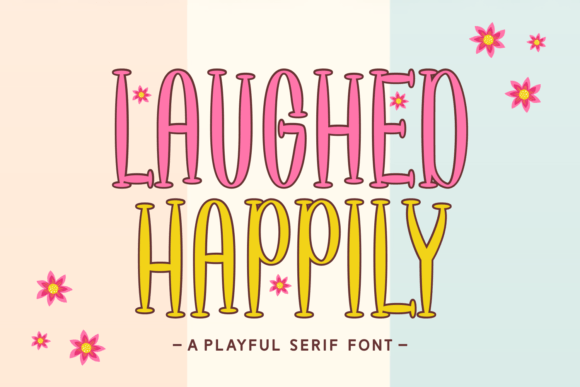
Laughed Happily: The Display Font That Brings Joy to Your Designs
There is a specific kind of energy that a font can convey before a single word is read. It sets the tone, dictates the mood, and often determines whether a viewer feels invited or turned away. Laughed Happily is a delightful and cheerful display font that radiates joy and positivity, designed specifically to capture that feeling of genuine delight. With playful curves and bouncy letterforms, it adds a touch of whimsy to any project, transforming standard text into a visual celebration. For creators, entrepreneurs, and everyday users looking to inject warmth into their work, this typeface offers more than just aesthetic appeal; it offers an emotional connection.
The Essence of Playful Typography
At its core, Laughed Happily captures the essence of happiness and laughter in every character. Unlike rigid sans-serifs or formal serifs that prioritize neutrality, this font embraces irregularity and movement. The letterforms are not static; they seem to bounce off the page, mimicking the natural rhythm of a child's handwriting or the spontaneous nature of a joyful shout. This makes it an ideal choice for anyone who wants their design to feel human, approachable, and full of life.
When you select a display font like this, you are making a statement about your brand or your message. You are signaling that your content is safe, fun, and welcoming. In a digital landscape often dominated by sleek minimalism, choosing something with personality can be a powerful differentiator. It tells the audience that you understand the importance of emotion in communication and that you value creativity over strict conformity.
Real-World Applications for Creators and Businesses
The versatility of Laughed Happily extends far beyond simple decoration. It finds its true home in projects where engagement and emotion are paramount. Let's explore how different professionals and hobbyists can leverage this font in practical scenarios.
Greeting Cards and Personal Stationery
One of the most immediate uses for this cheerful display font is in greeting cards. Whether you are designing birthday wishes, anniversary notes, or get-well-soon messages, the right typography can elevate the sentiment. Imagine a "Happy Birthday" card where the text itself seems to dance. Using Laughed Happily here instantly communicates excitement and warmth. It works exceptionally well for handmade stationery brands or Etsy sellers who want their products to stand out on crowded shelves. The bouncy nature of the letters suggests a personal touch, as if the sender took extra time to write a heartfelt note by hand.
Children's Books and Educational Materials
For authors, illustrators, and educators, engaging young readers is the ultimate goal. Laughed Happily is perfect for children's books, activity sheets, and classroom decorations. Children respond positively to visuals that feel friendly and non-threatening. When used for chapter titles, dialogue bubbles, or key vocabulary words, this font helps maintain a child's attention and encourages a love for reading. Educators can use it to create flashcards or posters that make learning feel like play rather than work. The playful curves align perfectly with the developmental stage of early childhood, where imagination and curiosity are driving forces.
Event Invitations and Party Branding
If you are planning a baby shower, a birthday party, or a community festival, the invitation sets the expectation for the event. A stiff, formal font might suggest a gala dinner, but Laughed Happily promises fun, games, and good times. Event planners and small business owners organizing workshops or pop-up markets can use this font to create flyers and social media graphics that attract a relaxed, enthusiastic crowd. It signals that the atmosphere will be light-hearted and inclusive, encouraging people to bring their families and friends.
Digital Marketing and Social Media Content
In the fast-paced world of social media, stopping the scroll is half the battle. Bloggers, influencers, and marketers often struggle to make their posts stand out against a sea of generic templates. Incorporating Laughed Happily into Instagram stories, YouTube thumbnails, or blog headers can grab attention immediately. It works particularly well for lifestyle brands, parenting blogs, or wellness coaches who want to project an image of optimism and approachability. However, it should be used strategically—perhaps for headlines or call-to-action buttons—to ensure it doesn't overwhelm the main body text, which usually requires better readability.
Who Benefits Most from This Typeface?
The utility of Laughed Happily spans a wide demographic, but certain groups will find it especially valuable. Small business owners in the creative sector, such as bakers, toy makers, or crafters, can use it to build a cohesive brand identity that resonates with their target audience. Freelance designers looking to expand their portfolio with unique display options will appreciate its distinct character. Even everyday users creating scrapbooks, family newsletters, or holiday decorations can benefit from the instant polish and cheerfulness it provides.
For entrepreneurs launching a new product line focused on family or leisure, this font serves as a visual ambassador for their values. It bridges the gap between professional design and personal expression, allowing businesses to appear both competent and caring. In educational settings, teachers and curriculum developers gain a tool to make learning materials more inviting, potentially improving student engagement and retention.
By understanding its strengths and limitations, you can harness the unique energy of Laughed Happily to create designs that not only look great but also feel right. It is more than just a collection of letters; it is a tool for spreading positivity and connecting with your audience through the universal language of happiness. So, the next time you need to add a touch of whimsy to your project, remember that the right typeface can make all the difference.